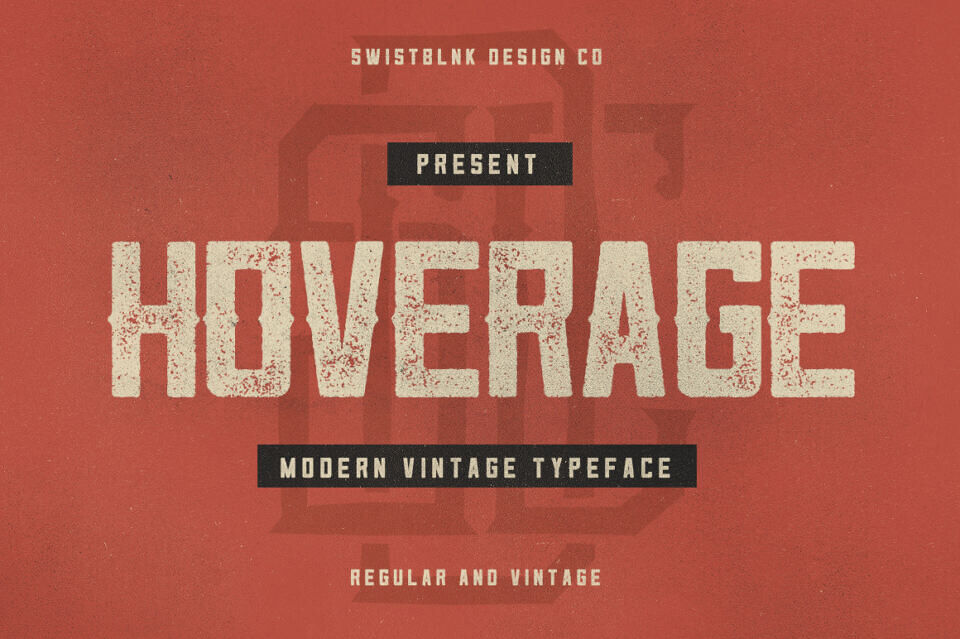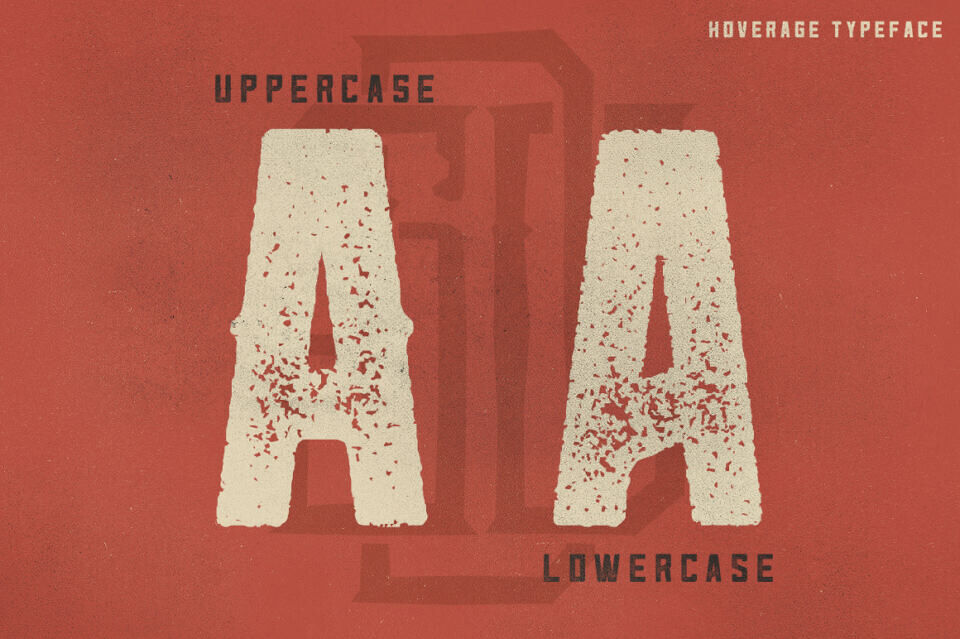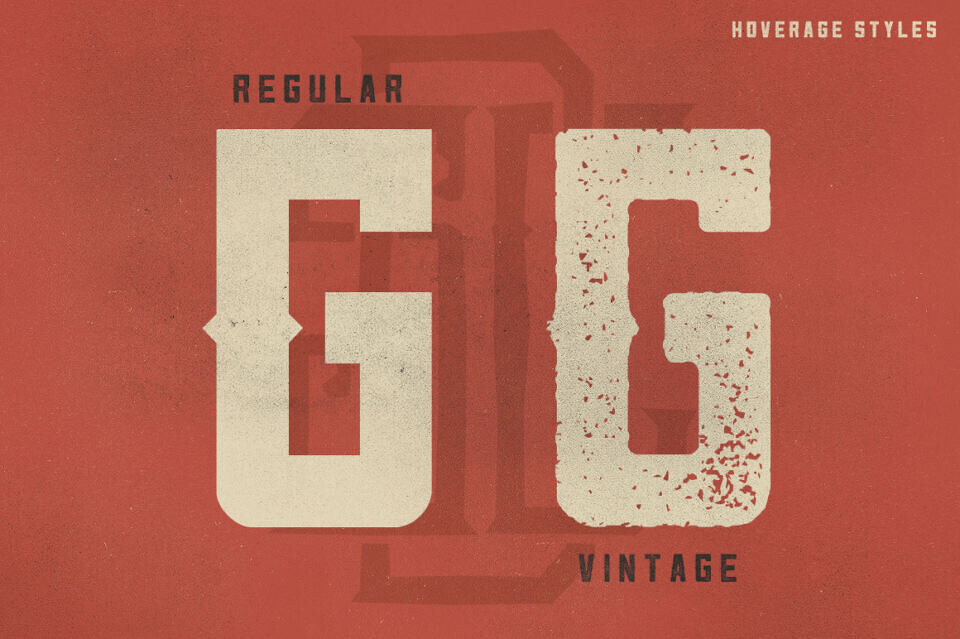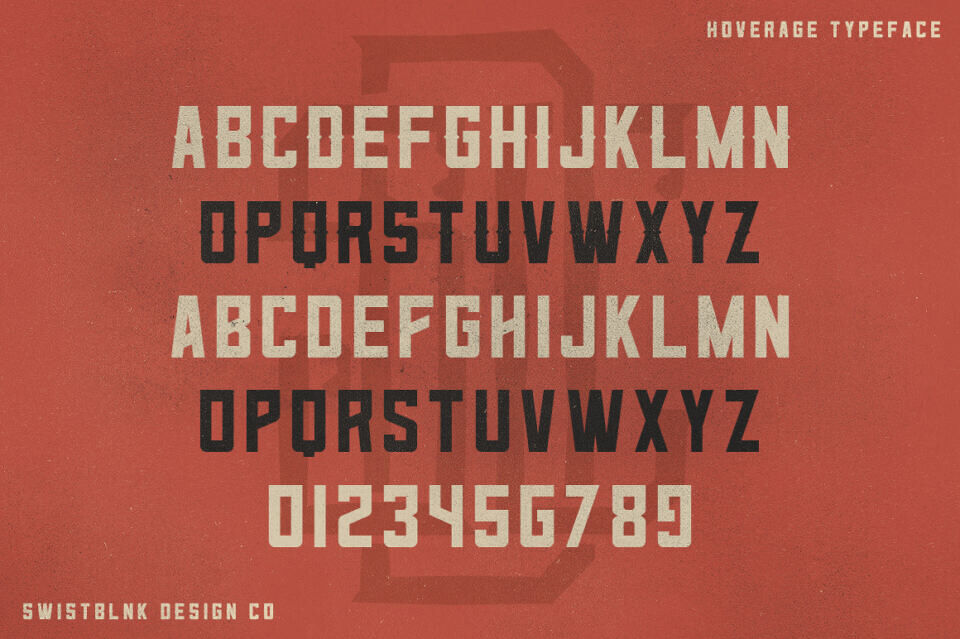
Hoverage Font
Hoverage Typeface is a bold Letterpressed Sans with modern vintage looks, designed for impactful designs. Its thick, geometric letters feature sharp angles and a slightly distressed texture, giving it a rugged, urban feel.
Perfect for headlines, logos, or posters, Hoverage delivers a strong, contemporary vibe. Available in uppercase, it includes numbers and basic punctuation, making it versatile for branding or streetwear-inspired projects, where its confident, gritty style can truly shine.